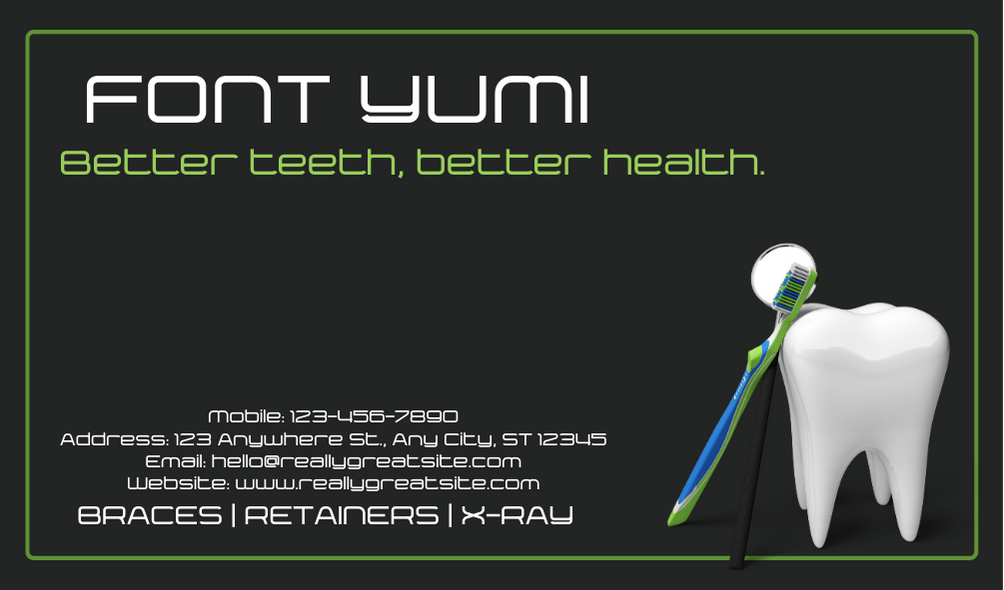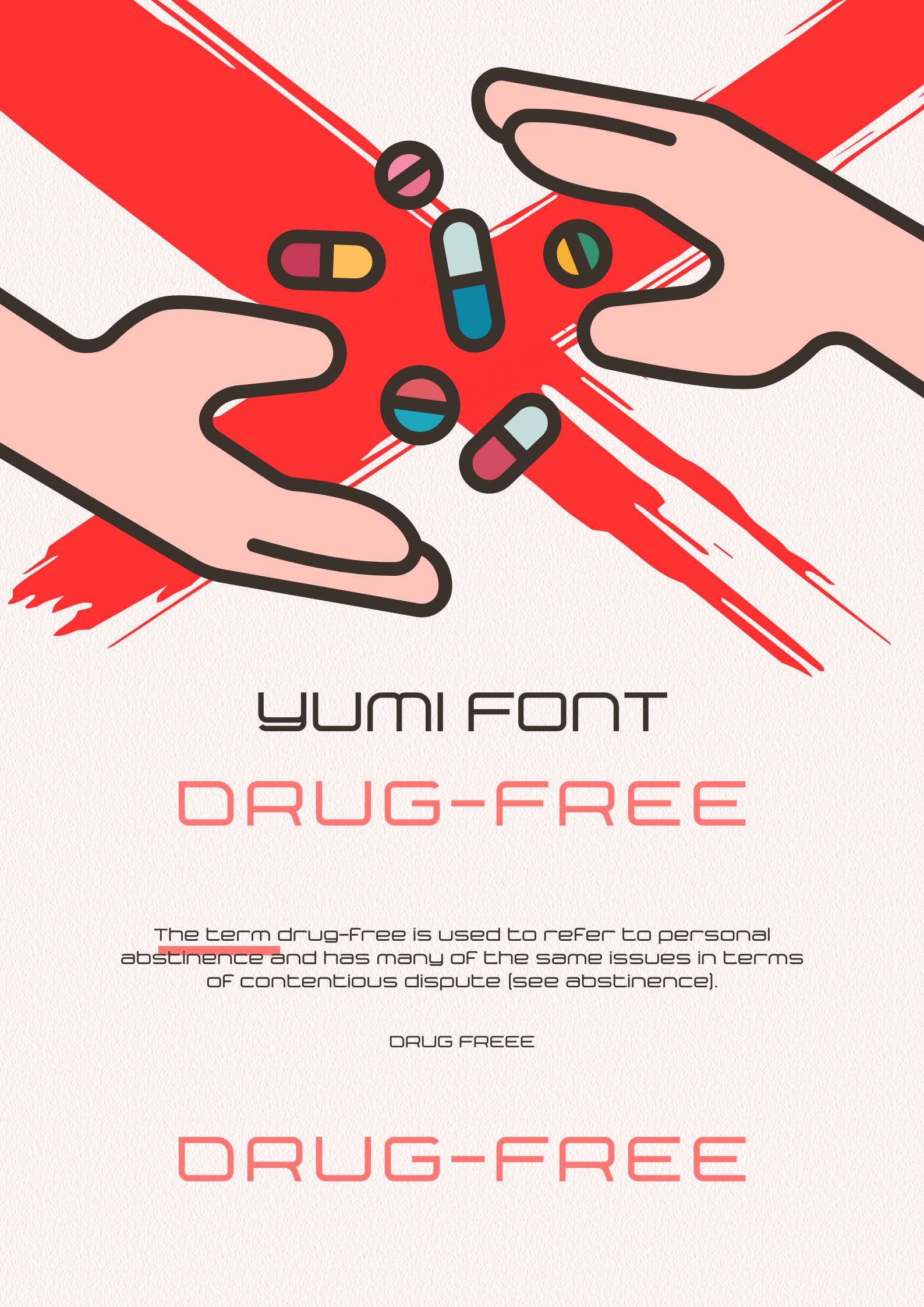
The Yumi Medium font is a great choice for playful designs.The font subfamily is Medium. The font was designed by Neil Summerour Positype and free for personal use.